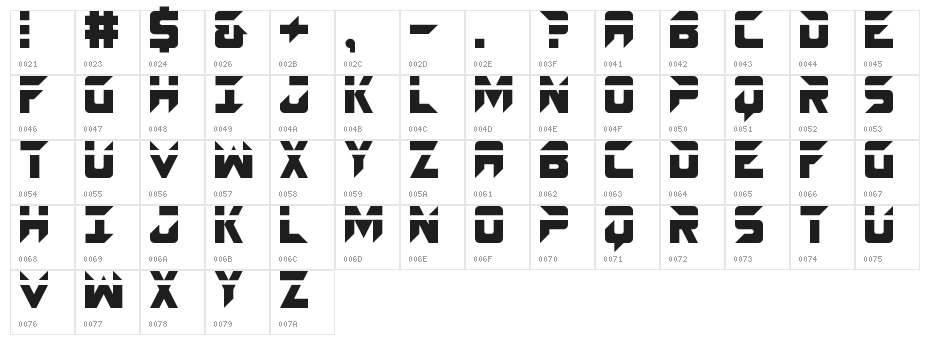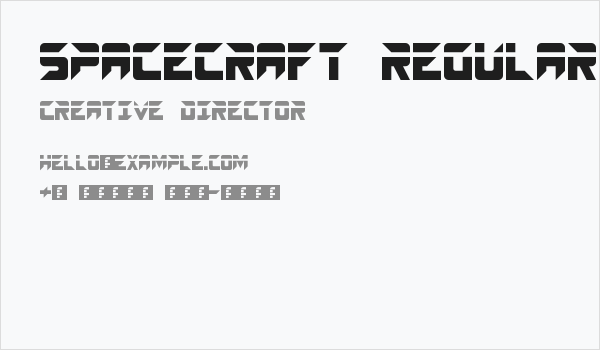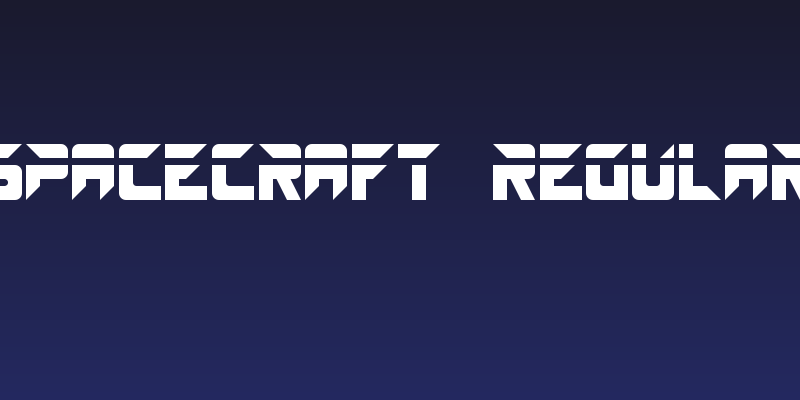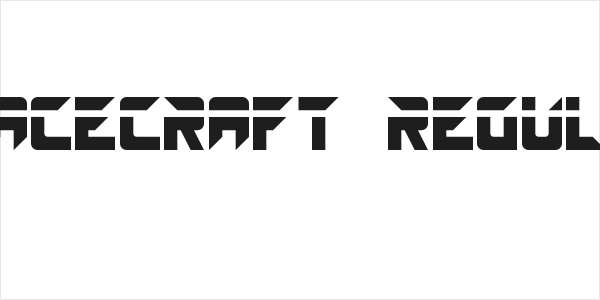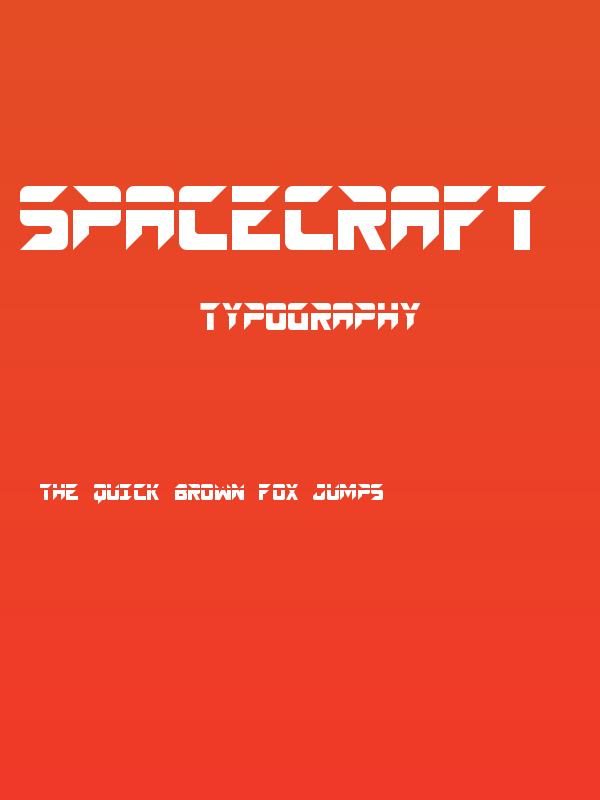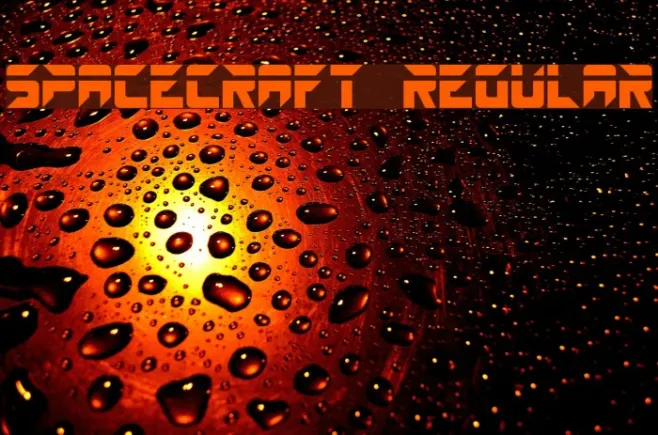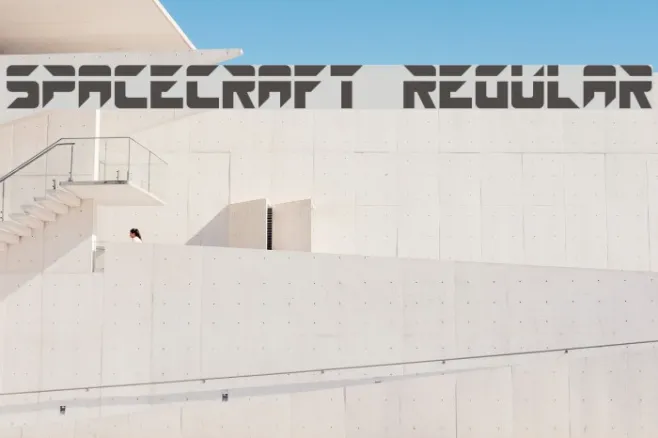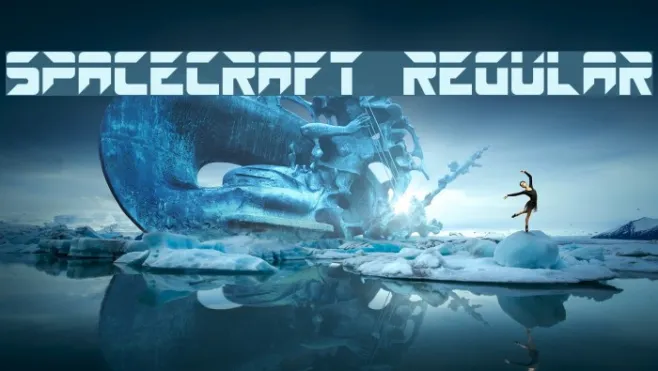
SPACECRAFT Regular Font
SPACECRAFT Regular Description
This font features a bold, futuristic design with geometric shapes and sharp angles. The characters are constructed with a distinct blocky style, incorporating cutouts and diagonal lines that give it a dynamic and modern appearance. The uppercase letters are particularly striking, with a consistent height and width that create a uniform look. The lowercase letters maintain the same boldness, ensuring readability while adding a unique flair. Numbers and special characters follow the same design principles, making them cohesive with the overall style. This font is ideal for projects that require a strong, contemporary aesthetic.
| Proposed Projects | Ideal for sci-fi themed designs, technology branding, video game titles, and futuristic posters. |